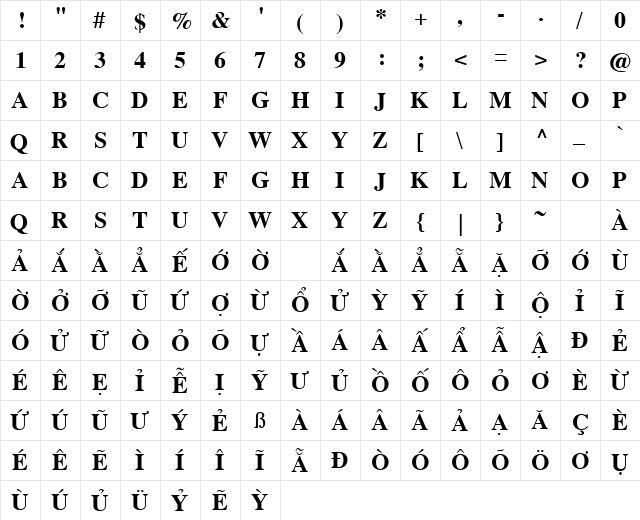
VPS Quang Duc Hoa Bold
Design Context for VPS Quang Duc Hoa Typeface
VPS Quang Duc Hoa offers clean, dependable letterforms without strong stylistic allegiance, making it a practical choice for designers who need flexibility. Its bold stroke weight gives it real presence on the page.